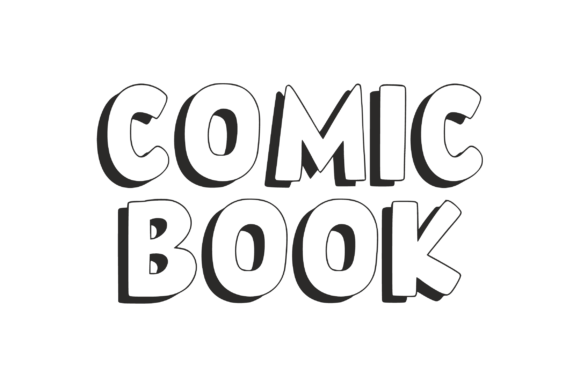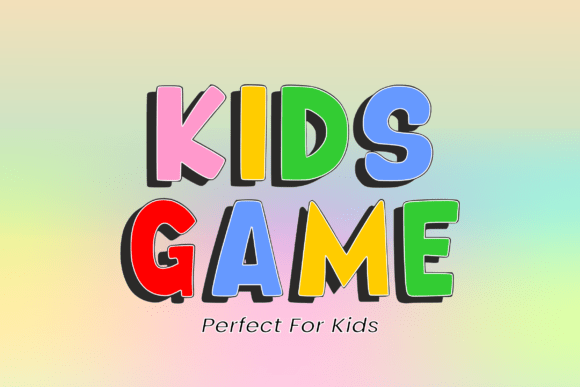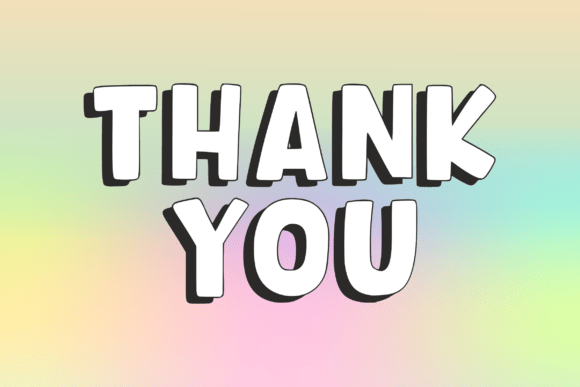
Introduction to Rubber Duck Font
Have you ever been in a creative rut, staring at a blank page or screen, desperately searching for that perfect font to bring your project to life? It’s a feeling we’ve all been there, and it’s a moment that can be frustrating, yet exhilarating. For designers, finding the right font can be the difference between a good design and a great one.
Enter the “Rubber Duck Font,” a whimsical and contemporary comic font that’s sure to become your new favorite design resource. With its playful and expressive characters, this font is perfect for adding a touch of personality to your designs. Whether you’re working on a t-shirt, mug, or tote bag, the “Rubber Duck Font” is a high-quality choice that’s sure to brighten up your creative project.
But what really sets the “Rubber Duck Font” apart is its versatility. With a transparent background and a free download option, you can use it in a variety of settings, from animations to comic titles. And with every letter being a delightful surprise, you’ll never tire of using it in your designs.
Key Features of Rubber Duck Font
- High-quality design resource ideal for creative projects requiring a playful touch
- Features a unique, hand-drawn design with intricate details and textures, perfect for adding personality to your work
Honest Review: Rubber Duck Font
I recently stumbled upon the Rubber Duck Font and was excited to give it a try in my latest design project. As a designer, I’m always on the lookout for high-quality design resources that can add a personal touch to my creative projects.
The Rubber Duck Font did not disappoint. The font is available for free download and features a transparent background, making it easy to customize and integrate into any design.
- The font is limited to a single style, which may not be ideal for complex designs
- Some users may find the font too simplistic
Overall, I was impressed with the Rubber Duck Font and would definitely recommend it to designers looking for a free, high-quality design resource. ⚠️While it may have some limitations, the font’s simplicity and versatility make it a great addition to any creative project.
Rubber Duck Font
Rubber Duck Font is perfect for a variety of creative projects, including children’s book illustrations, educational materials, and social media graphics. Its playful and unique style makes it an excellent choice for designers looking to add a touch of whimsy to their work.